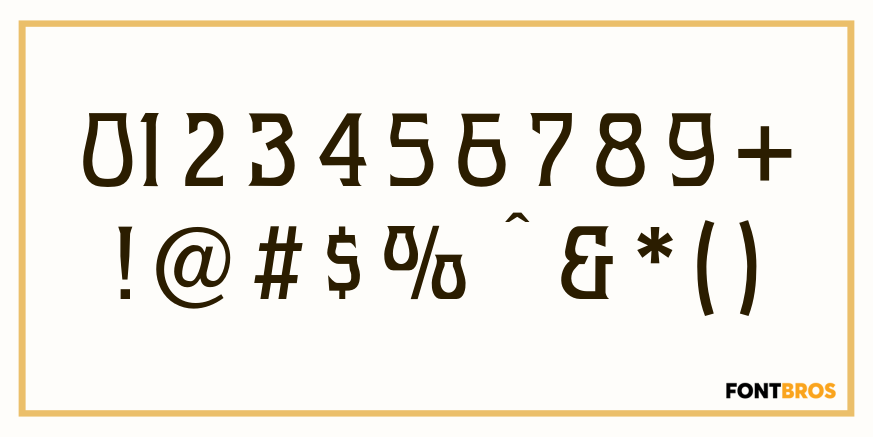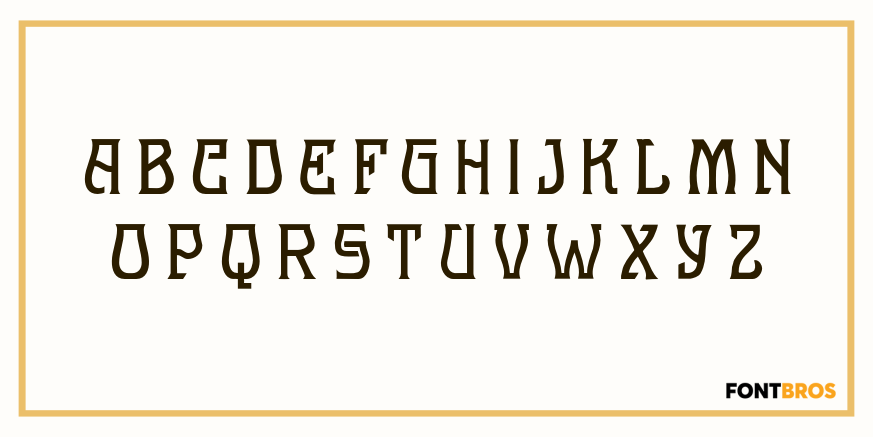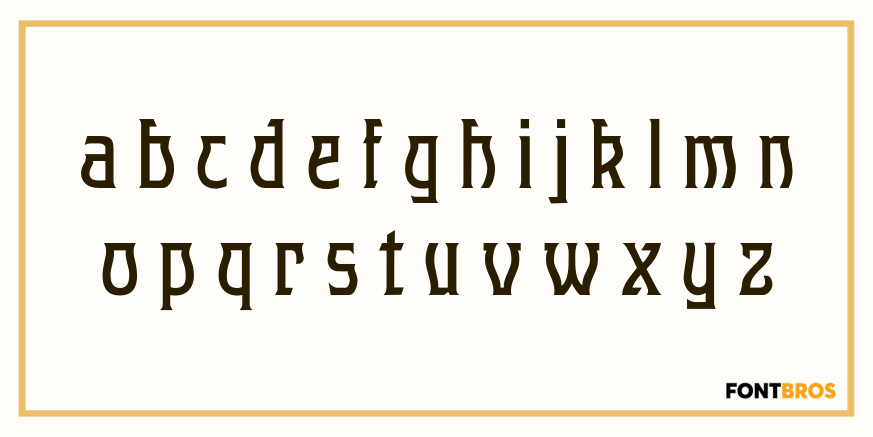
Hullabaloo
Font Family by Solotype
We saw a few letters of this in a catalog, and liked it so well we drew it up and made it as a film font for photolettering. Due to a surplus of interesting types in our shop this one never made it into our catalog, so we can